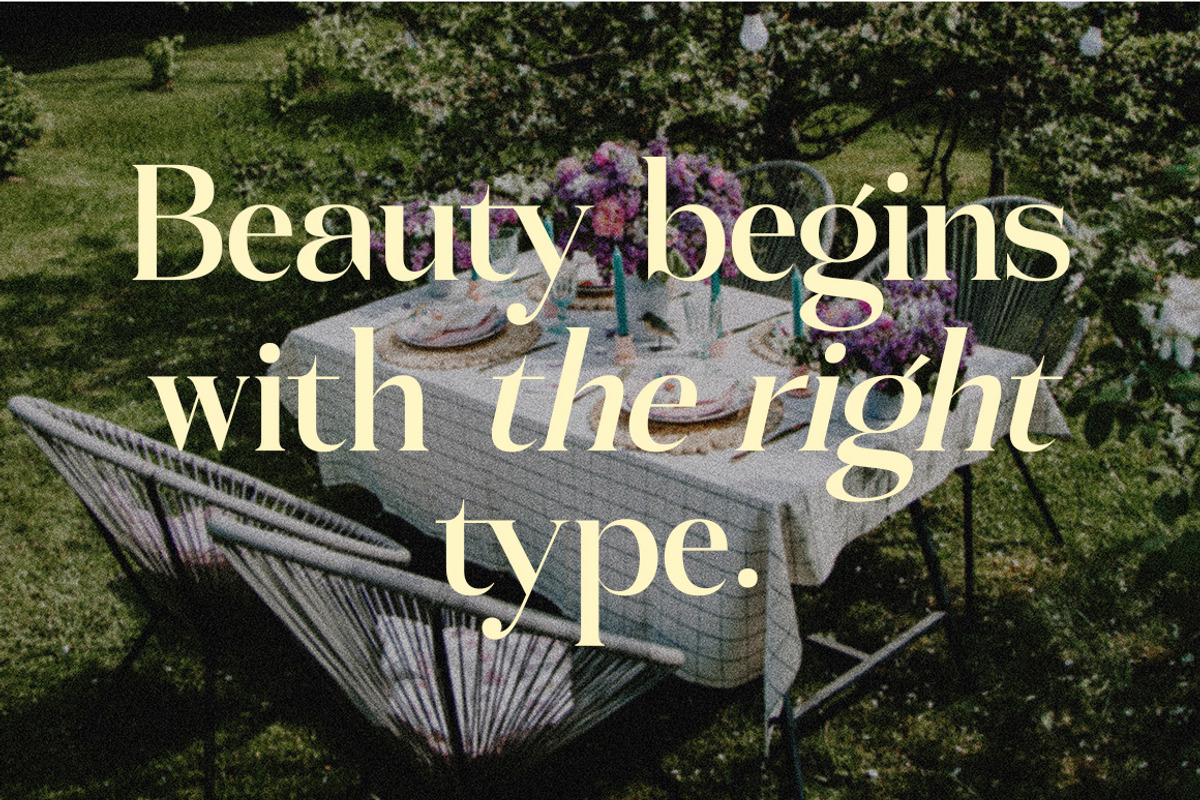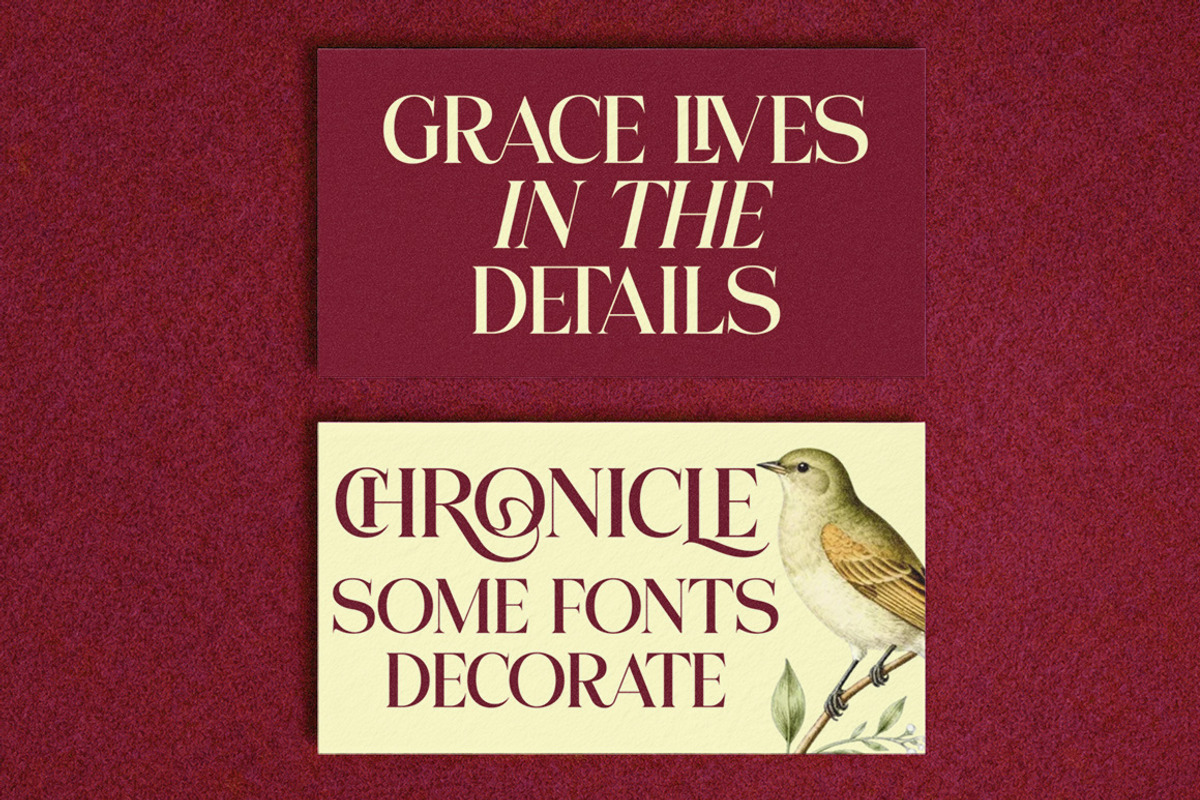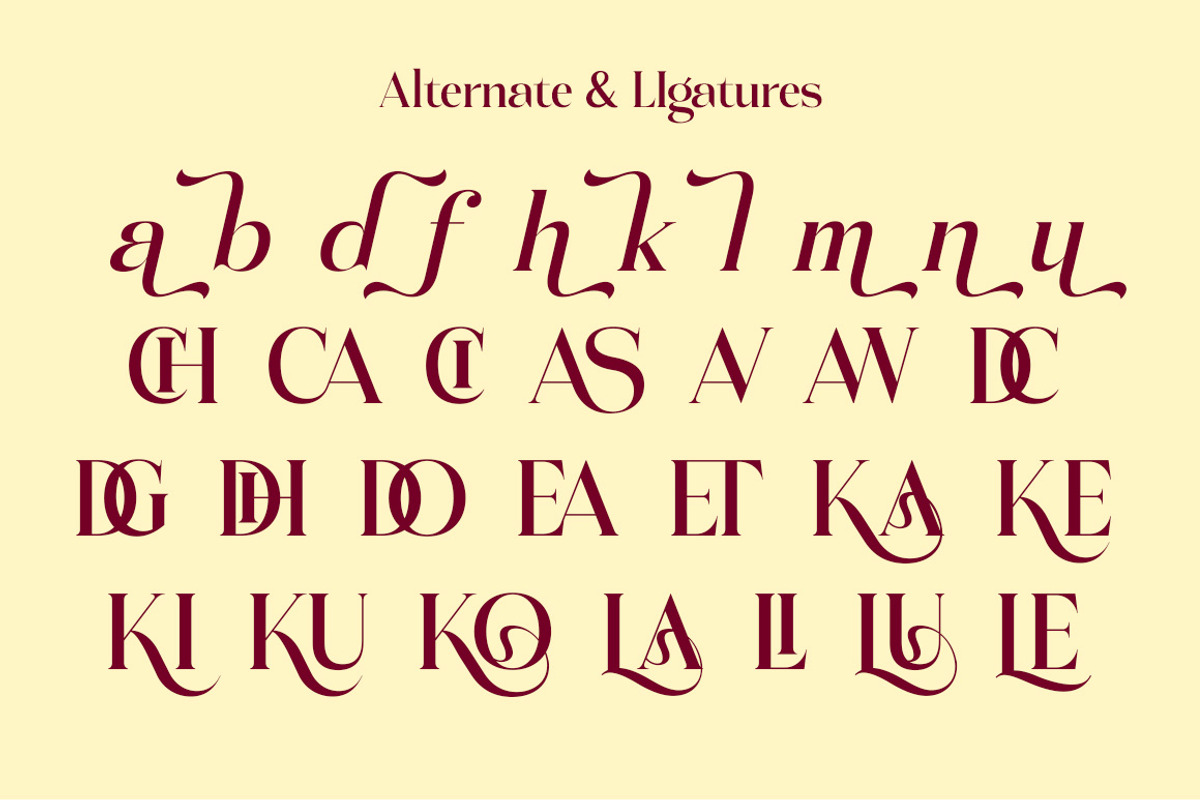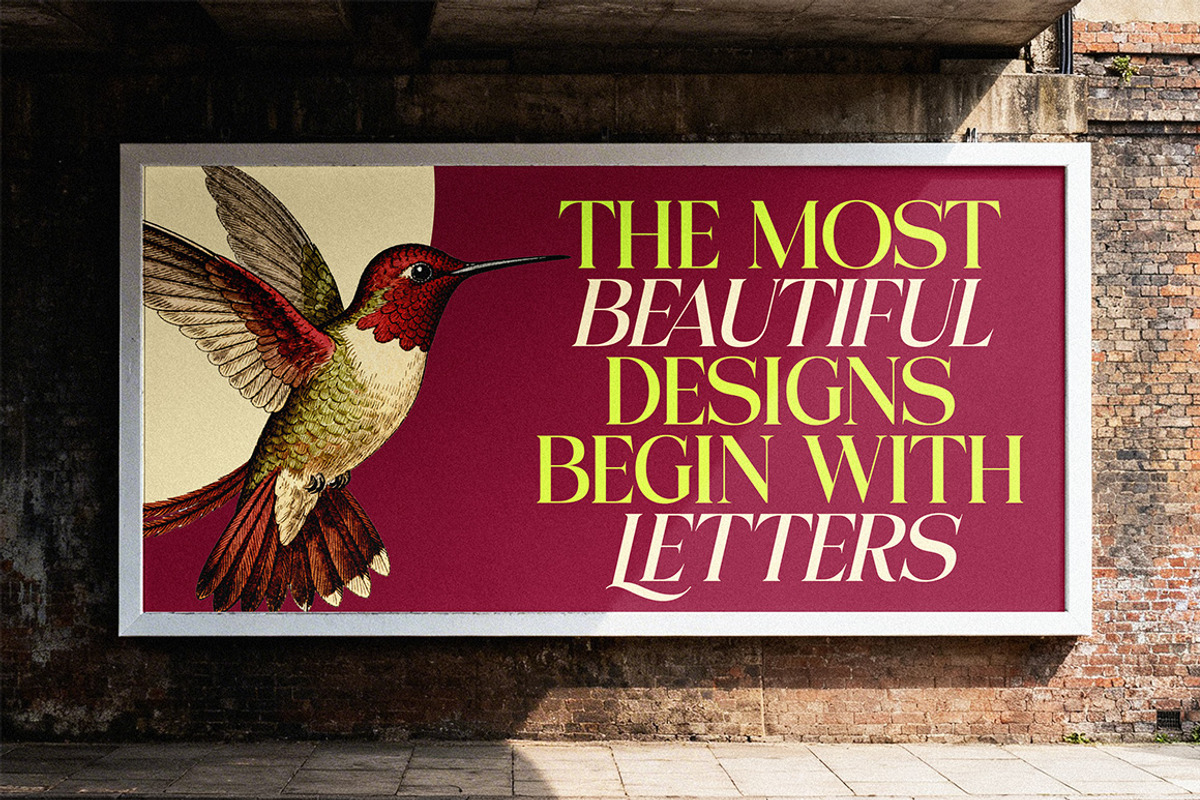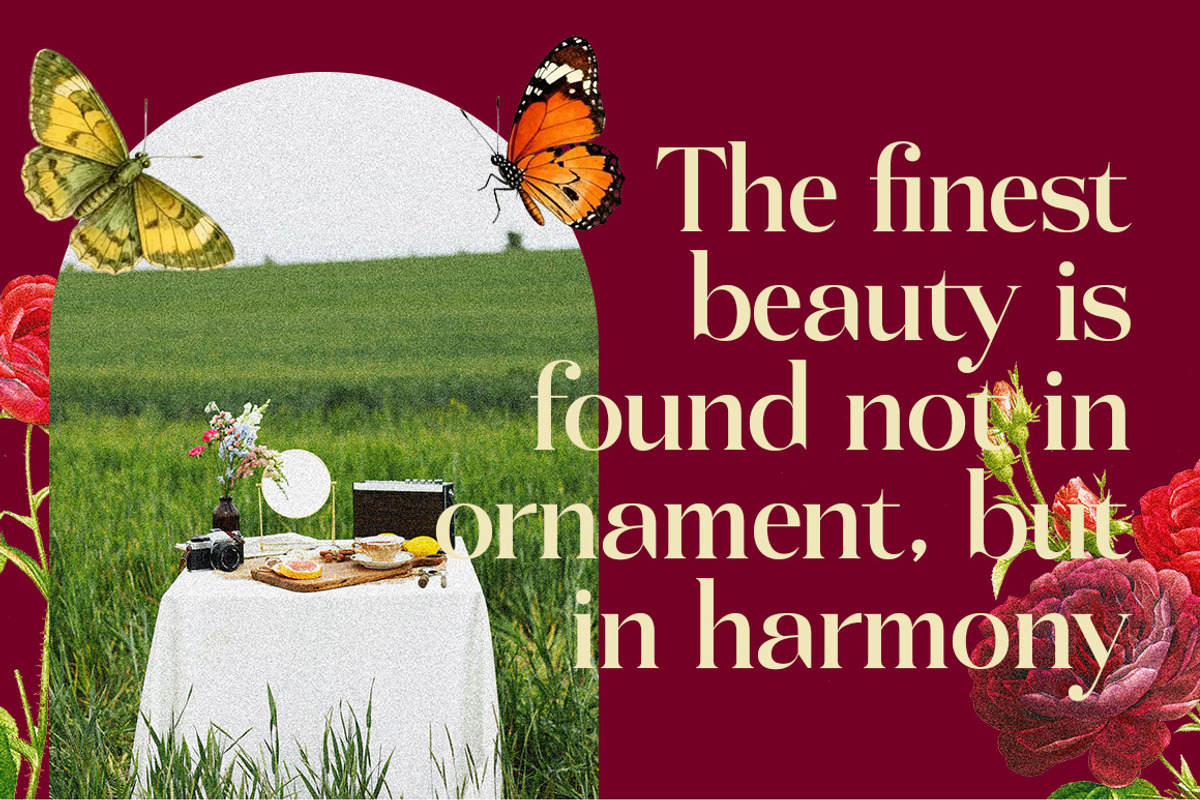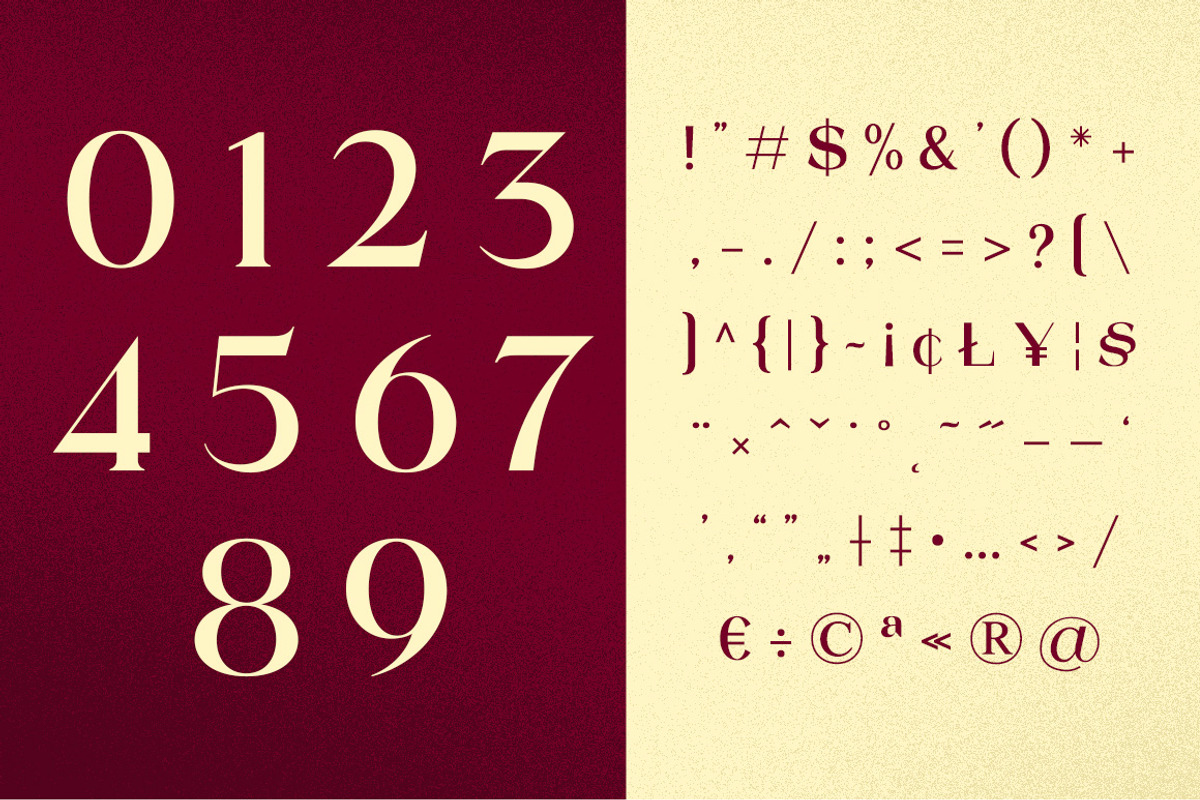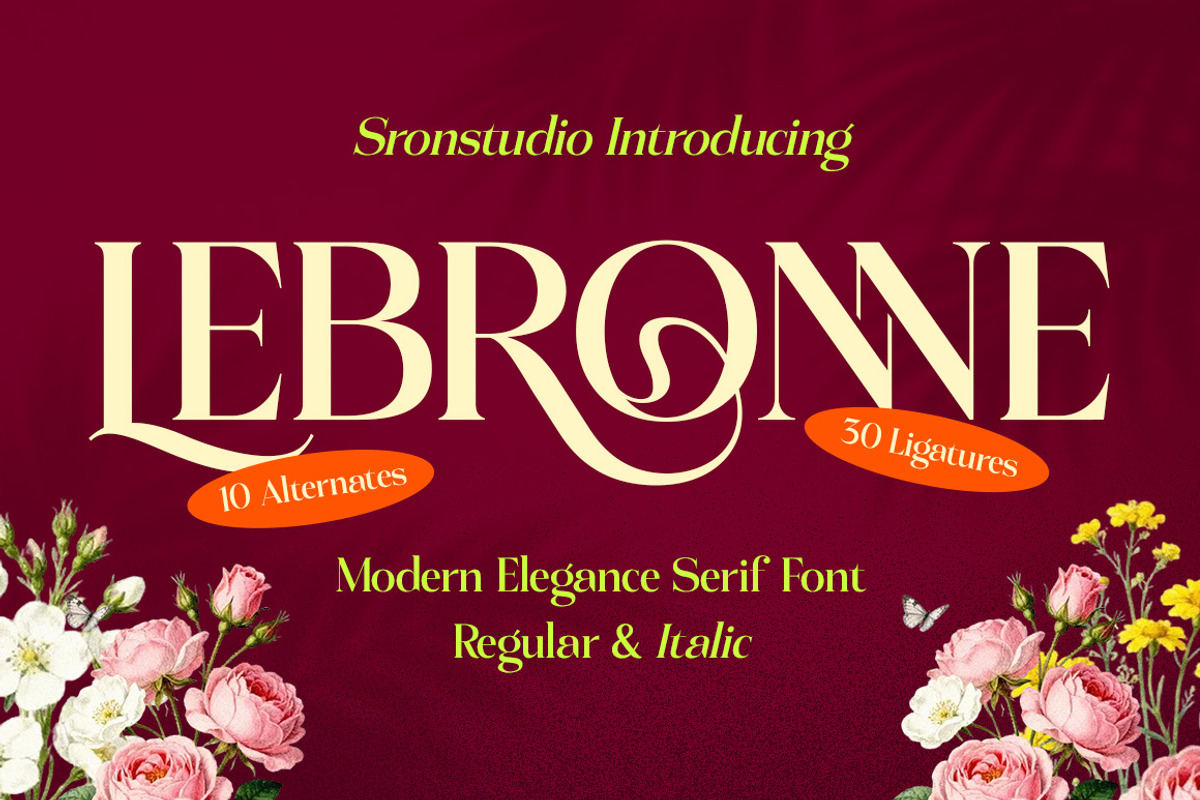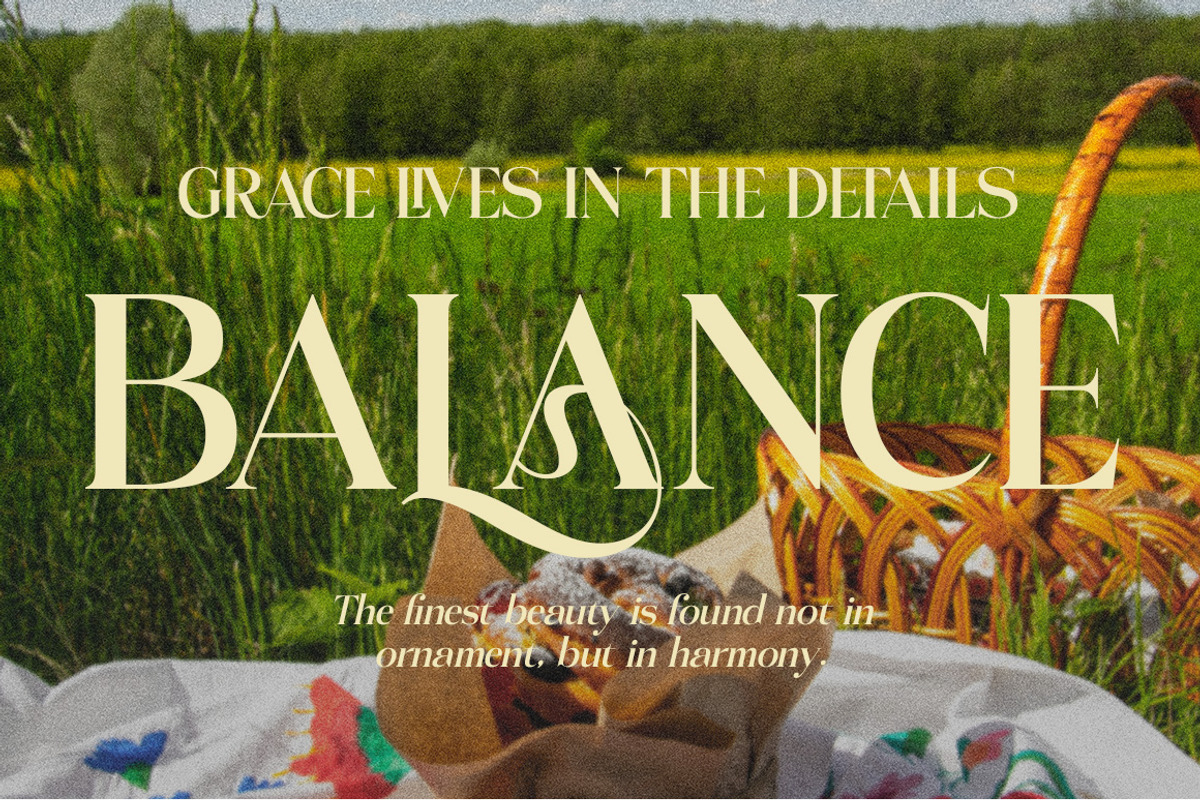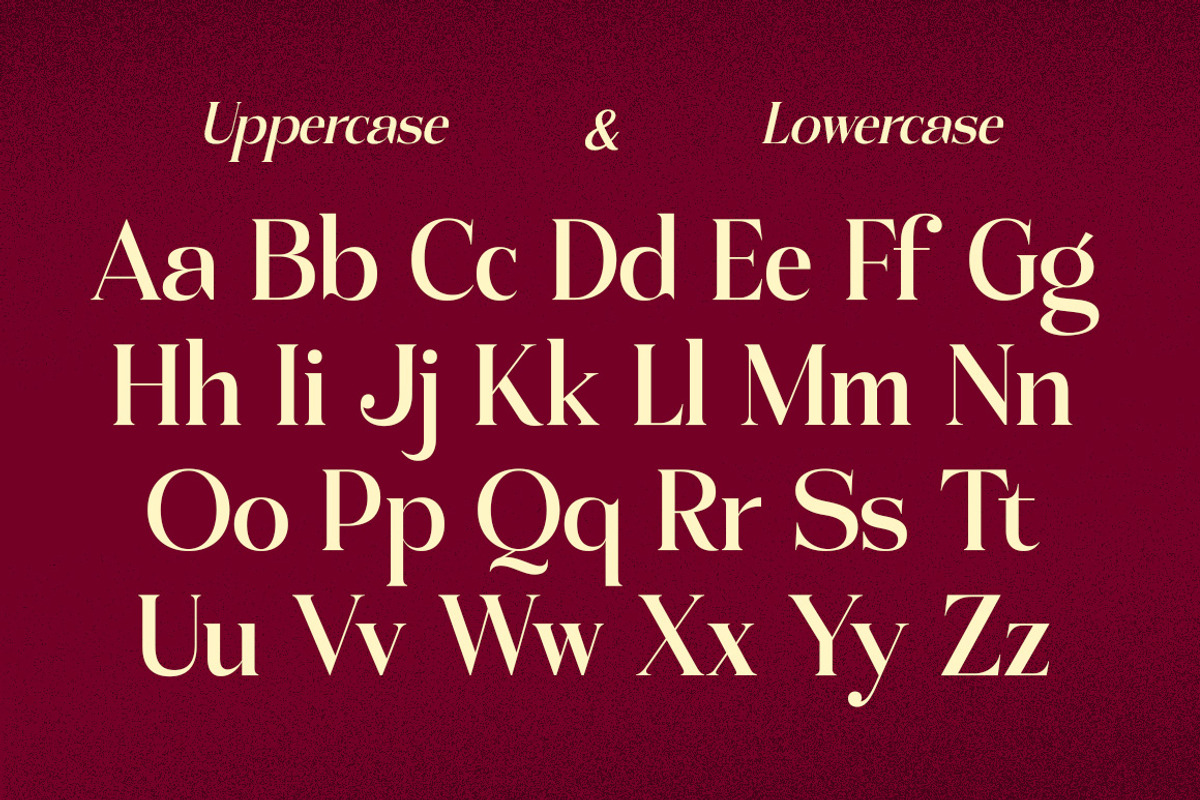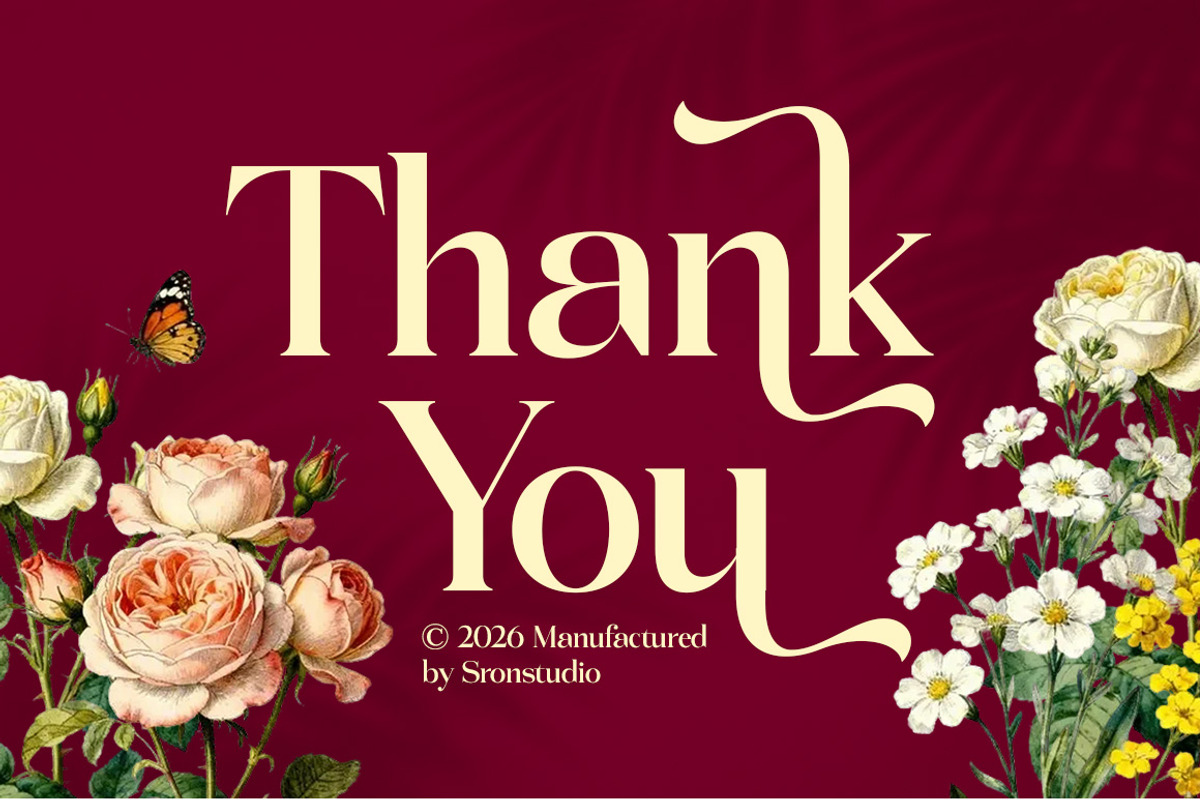
Lebronne - Serif Font
Lebronne is an elegant serif font that embodies sophistication and timeless beauty. With its refined serifs, graceful curves, and balanced proportions, this font brings a luxurious and polished touch to any design. Perfect for high-end branding, editorial layouts, fashion magazines, invitations, and premium packaging, Lebronne delivers a classic yet modern elegance that feels both stylish and enduring.
- Numerals & punctuation